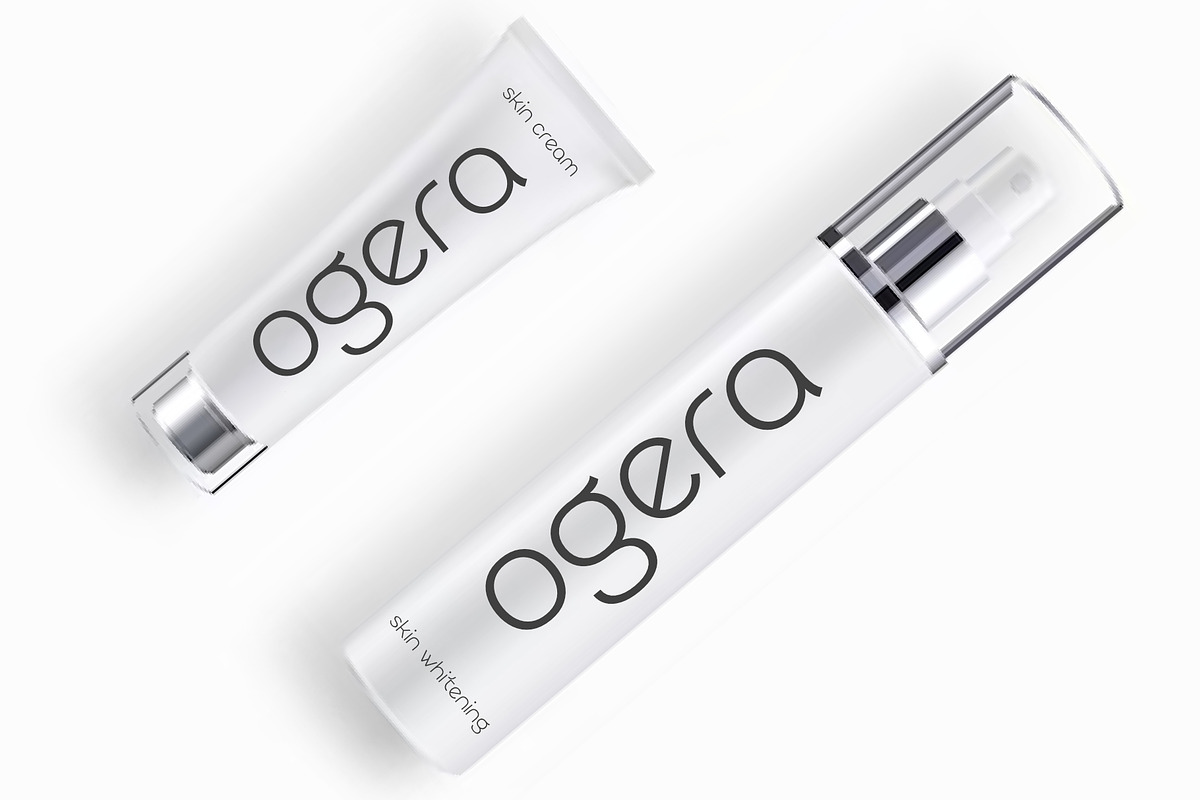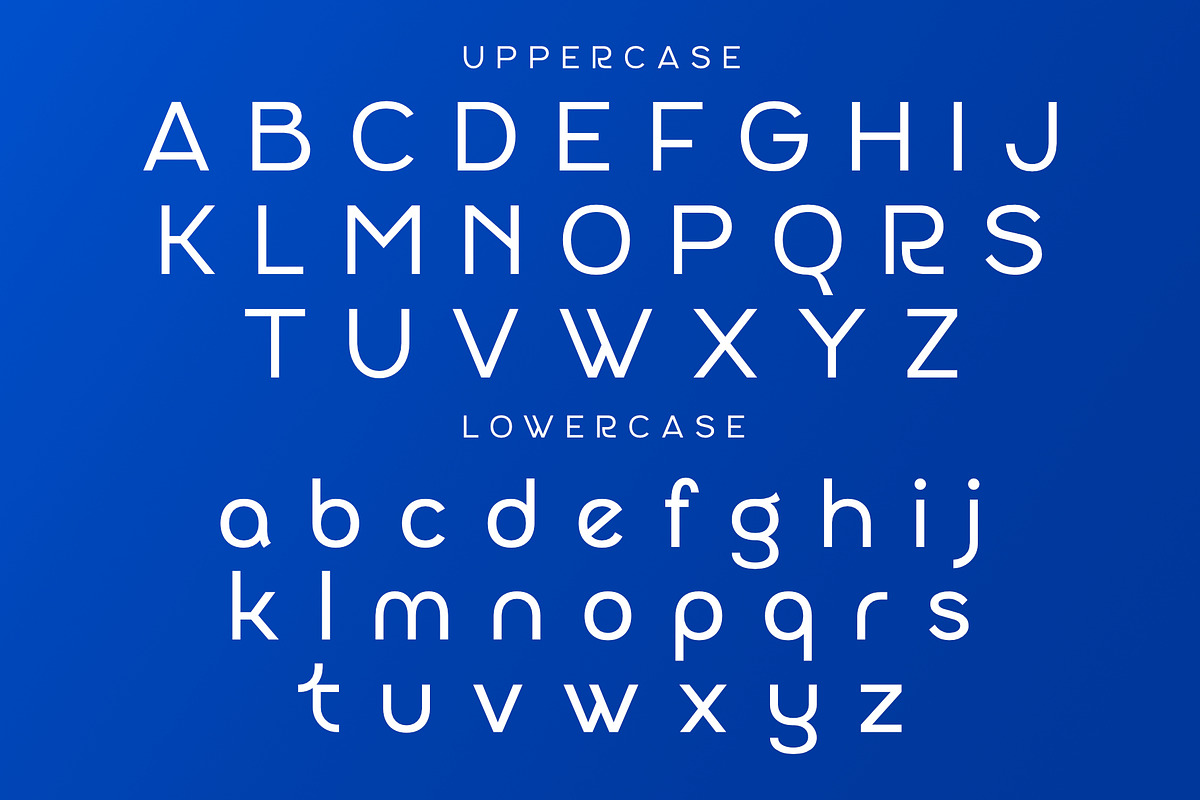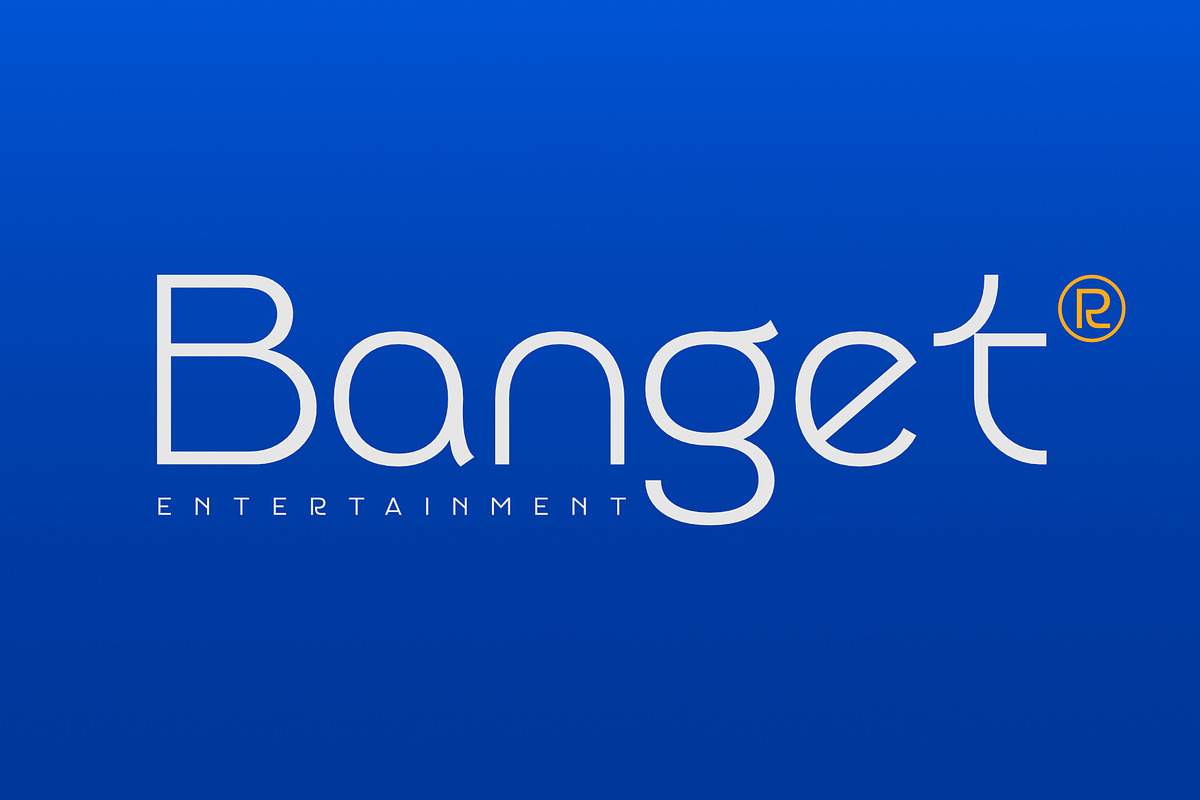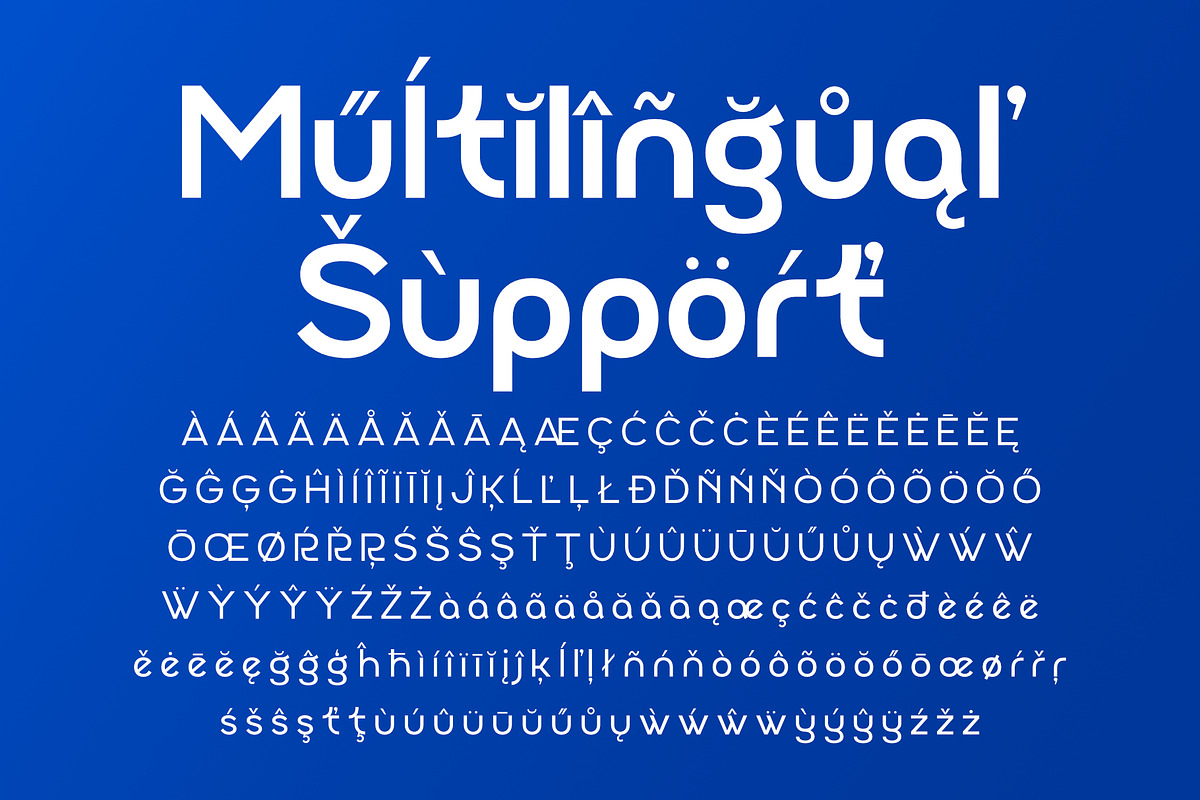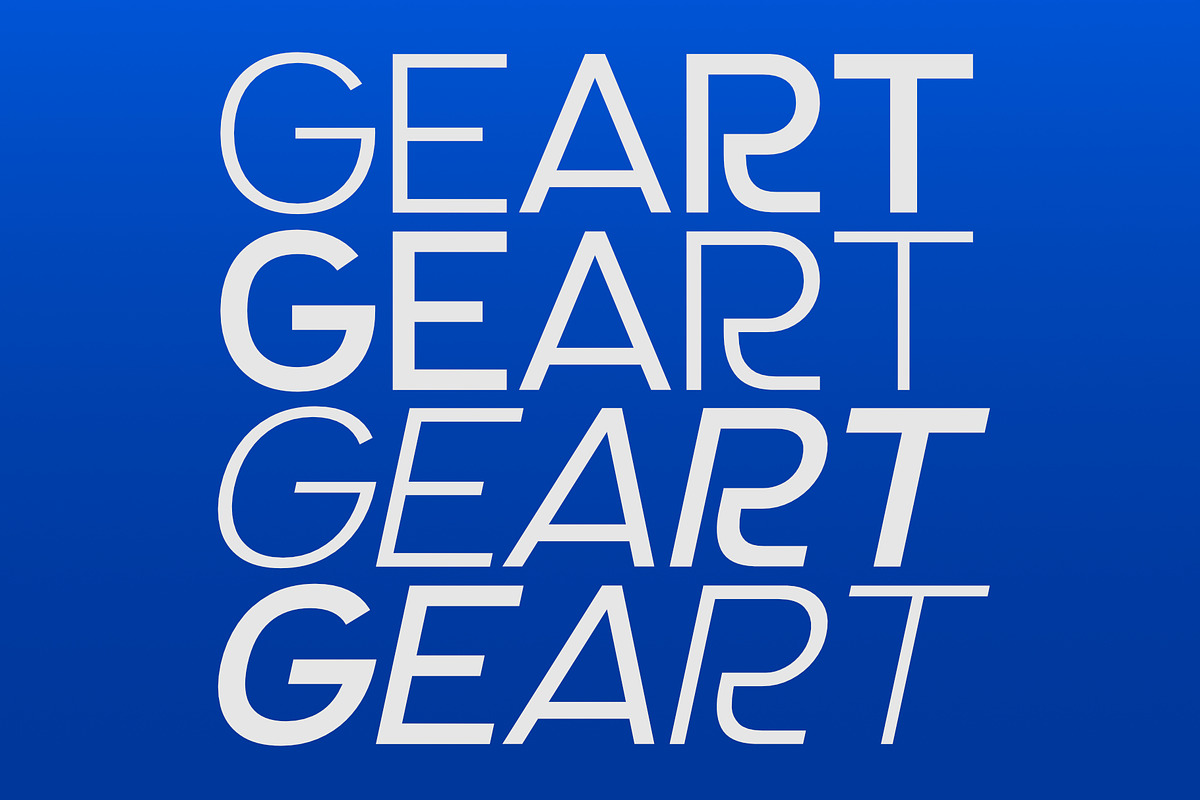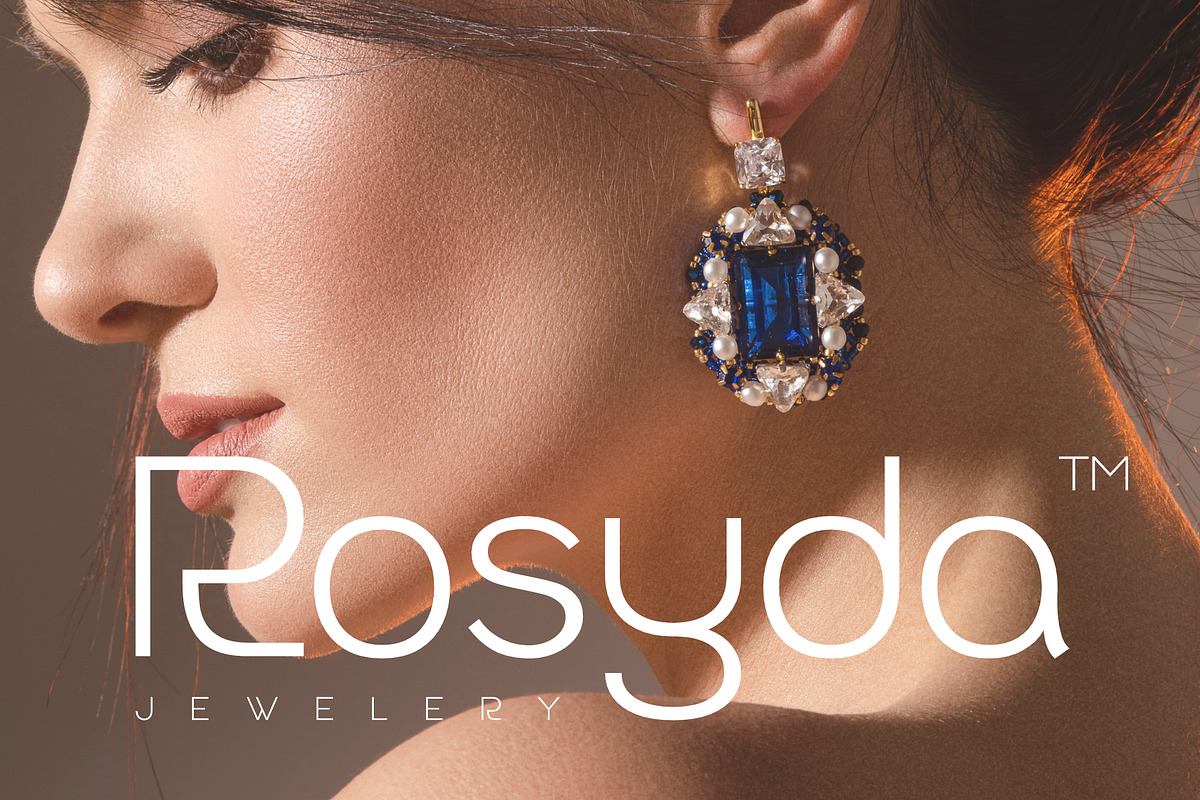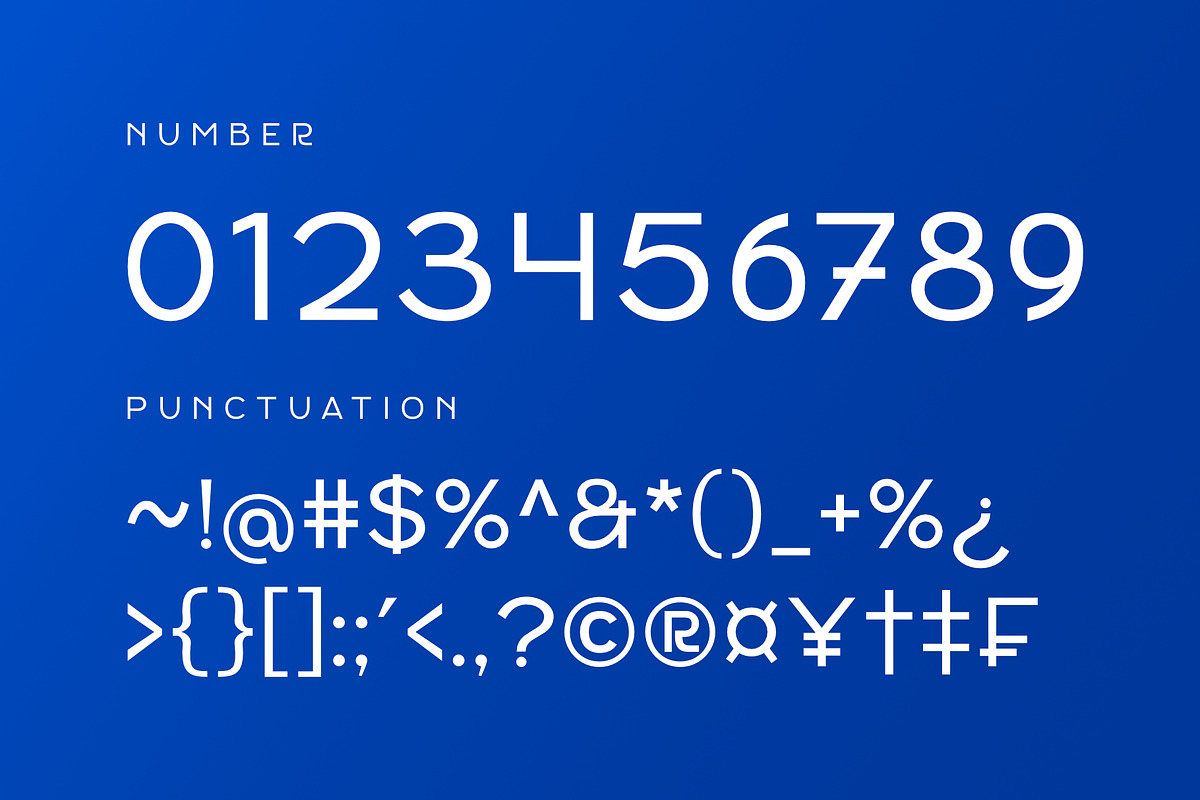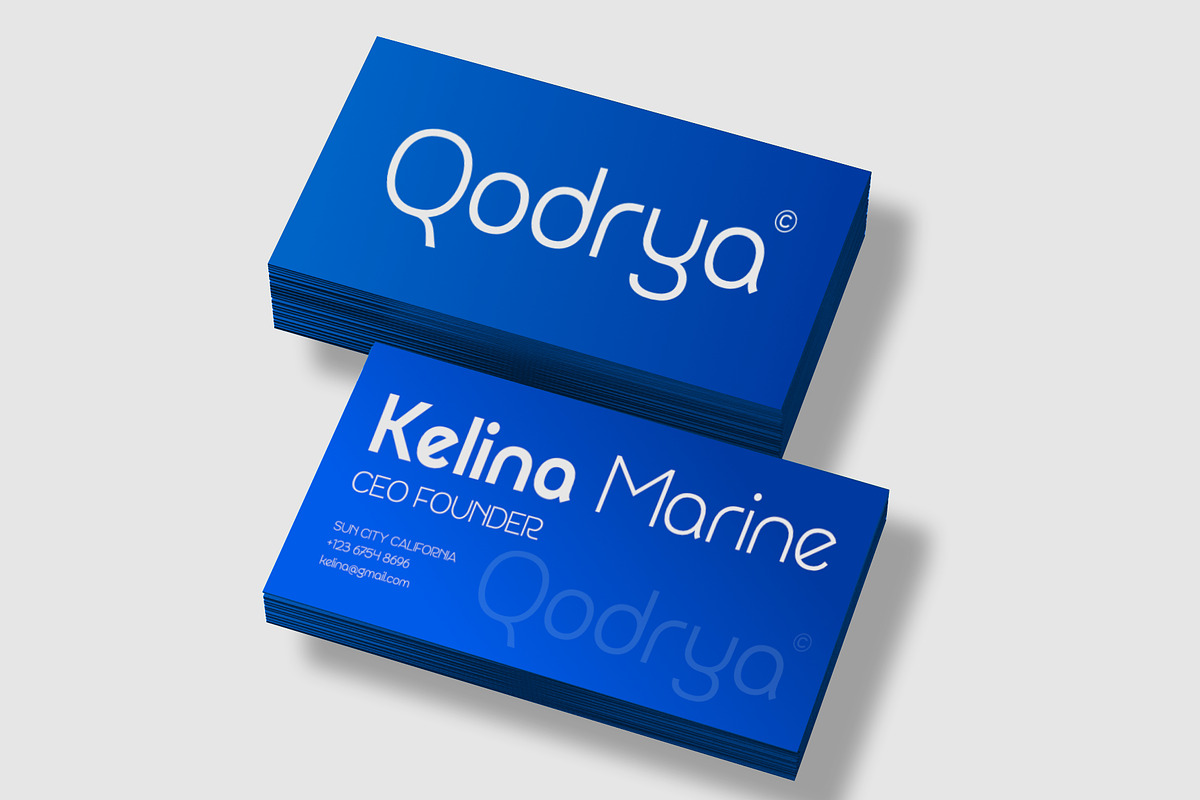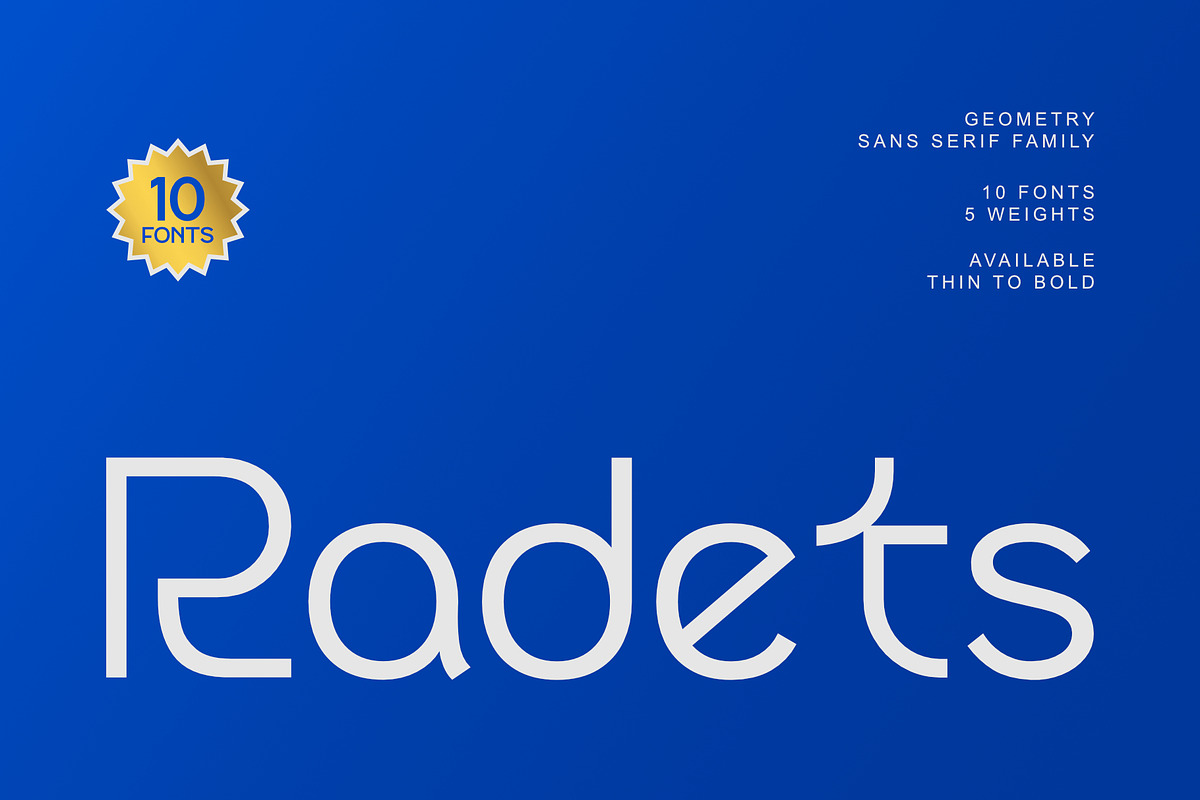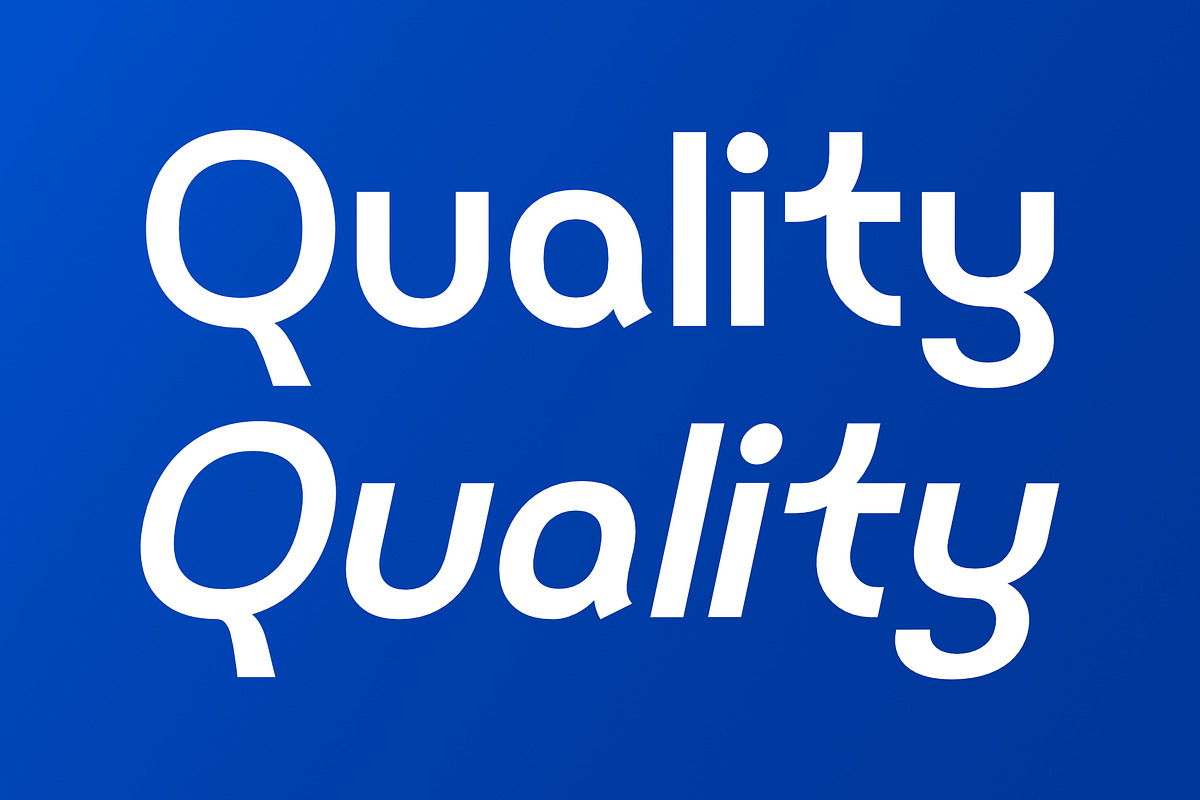
Radets - Geometry Sans Serif Family
Radets – Geometry Sans Serif Family
Radets is a geometric sans serif font family designed to balance modern simplicity with versatile functionality. Featuring precise letterforms, clean lines, and harmonious proportions, Radets brings a professional and timeless feel to any creative project.
With a full range of weights from Thin to Bold, Radets allows you to create anything from light minimal designs to bold, striking visuals. Its geometric structure makes it a perfect choice for modern branding, logos, editorial layouts, packaging, and digital projects that demand clean and elegant typography.
Modern geometric sans serif family
Full weight range from Thin to Bold
Ideal for logos, branding, editorial, and packaging
Complete set of uppercase, lowercase, numerals, and punctuation
OpenType features for advanced typography control
Extensive multilingual support
Elevate your visual identity with Radets – the geometric sans serif family that combines precision, modern style, and versatility.